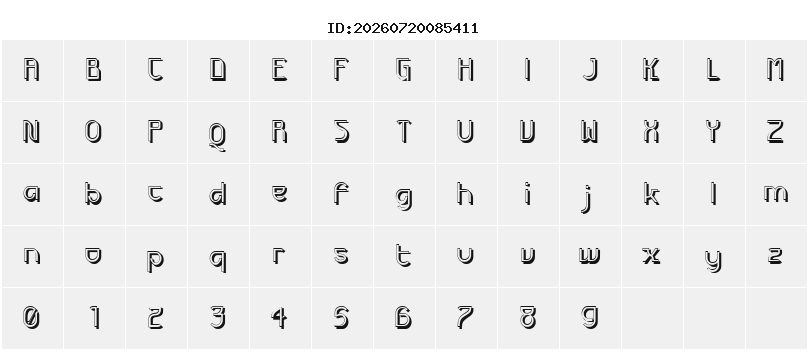
• Font Name: Futurex Deco
• Full Font Name: Futurex Deco
About Futurex Deco.ttf
Futurex Deco.ttf is a modern, elegant sans-serif font designed for ultimate readability and visual harmony. Perfect for branding, headlines, web design, and print materials.